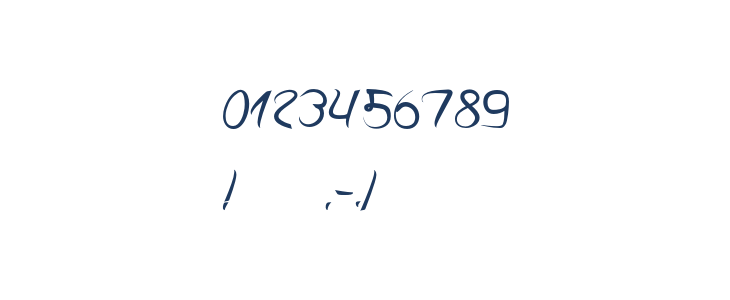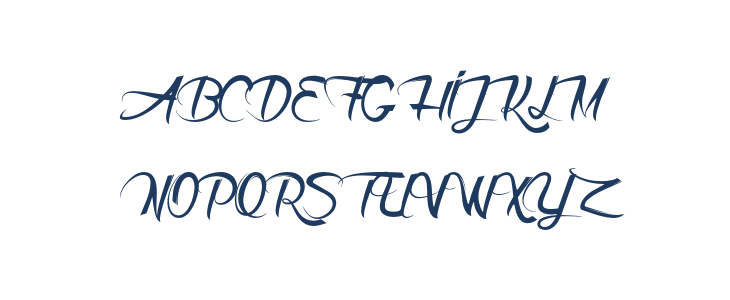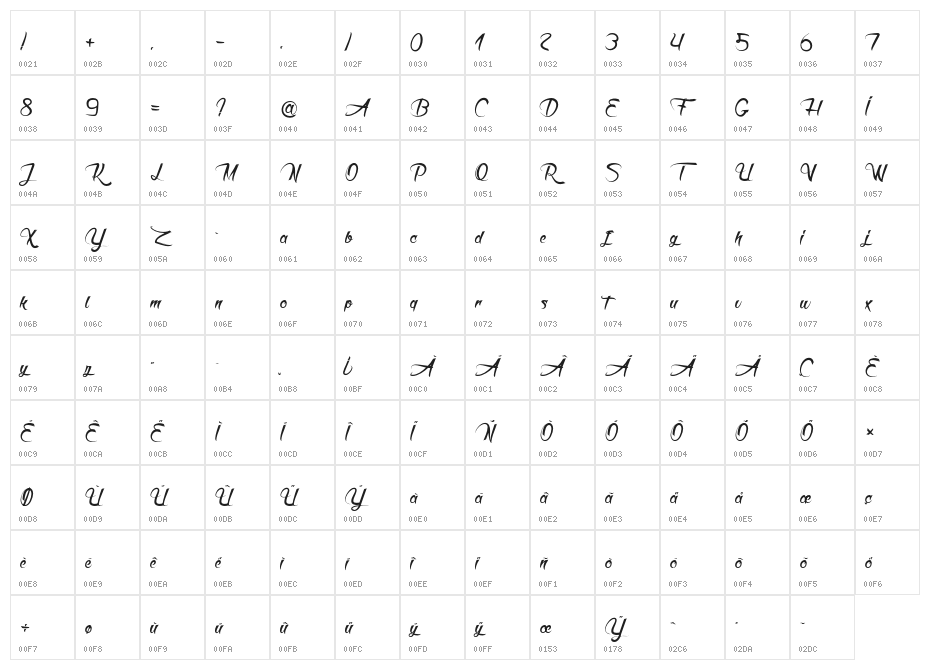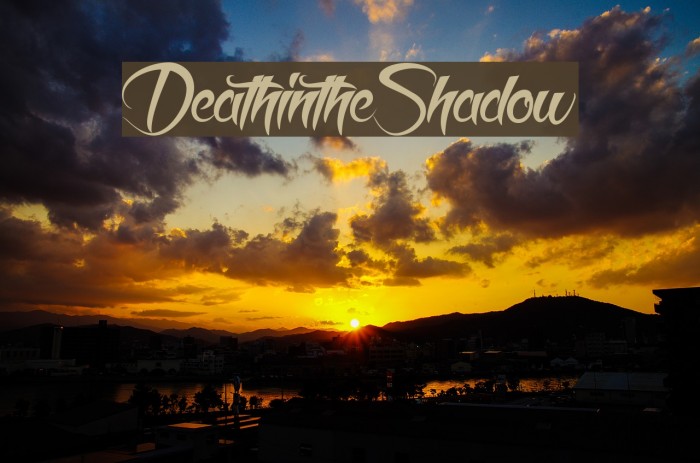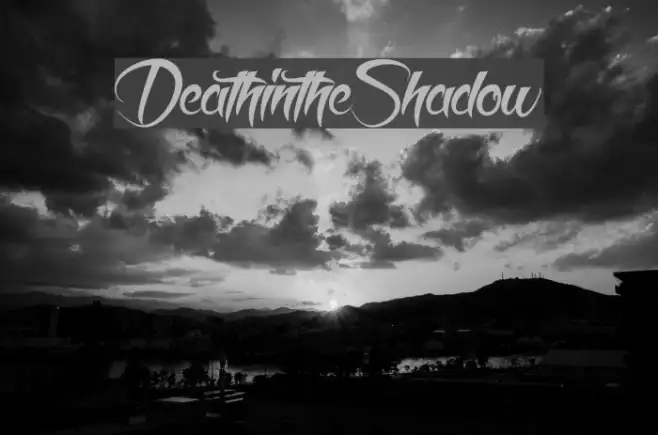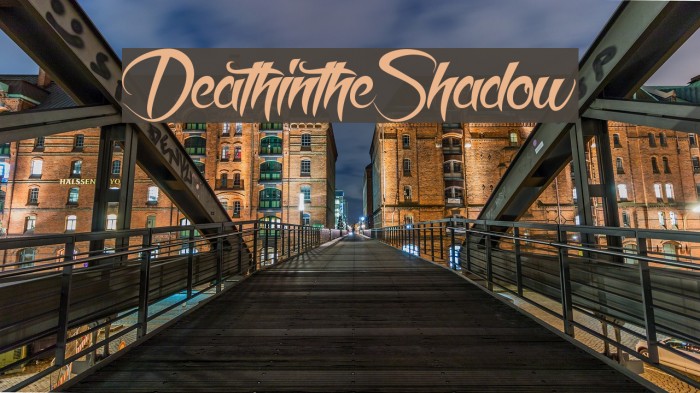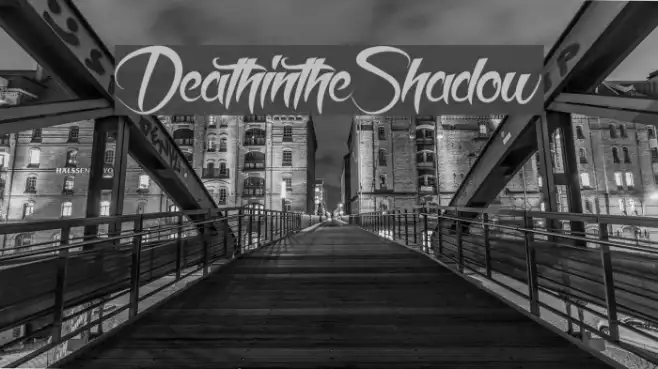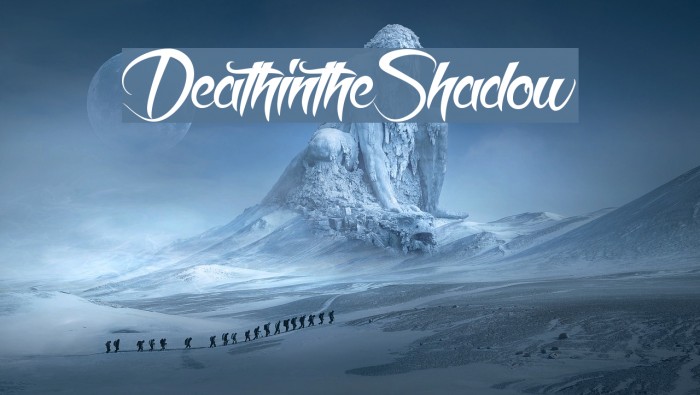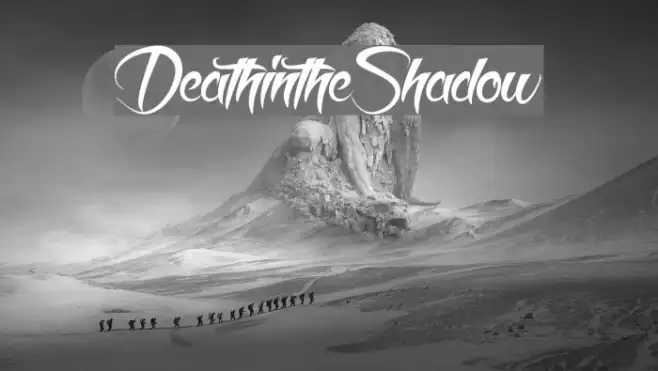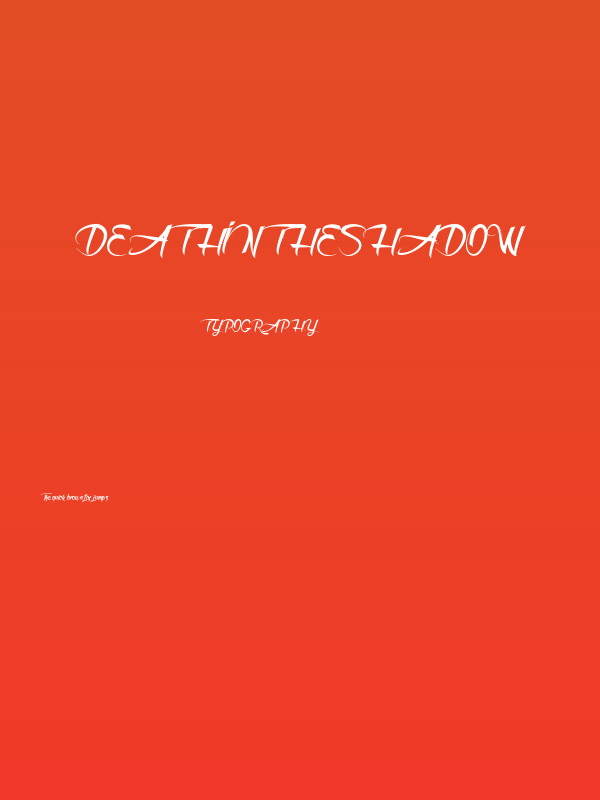
DeathintheShadow Font
DeathintheShadow Description
This font features an elegant and flowing script style, characterized by its sweeping curves and intricate details. The uppercase letters exhibit a dramatic flair with extended strokes and decorative elements, while the lowercase letters maintain a cohesive and fluid appearance. The numerals are distinct yet harmonize well with the overall design, adding to the font's versatility. Special characters are crafted with the same attention to detail, ensuring consistency across all glyphs. This font's artistic nature makes it suitable for creative and expressive projects.
| Proposed Projects | Ideal for wedding invitations, branding, logo design, and artistic projects requiring a touch of elegance. |